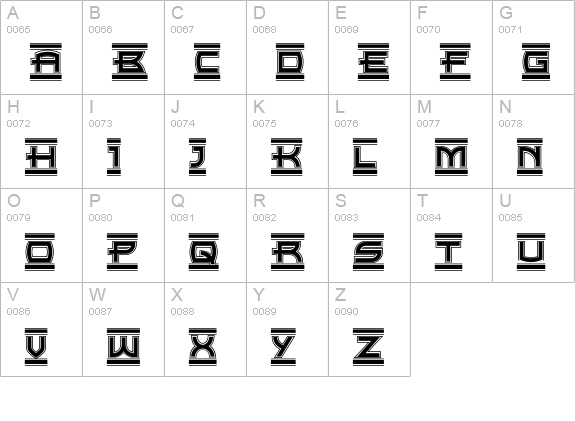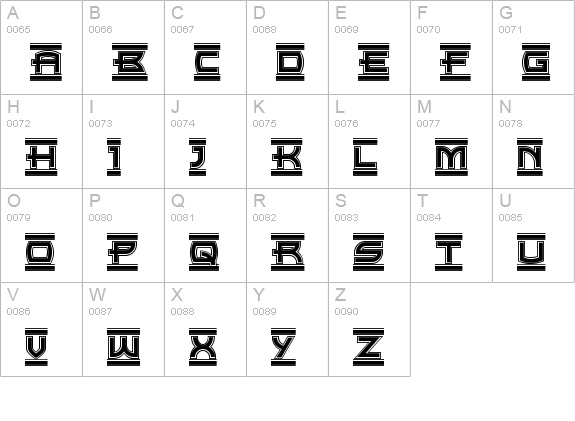
EmpireState font exudes a timeless elegance with its sleek lines and classic charm. This versatile typeface is perfect for a wide range of design projects, from elegant invitations to modern branding. Its bold yet sophisticated appearance makes a statement while maintaining readability and clarity. The EmpireState font is available for free download at FontsMarket.com, where you can easily access this stunning typeface to elevate your creative projects. Whether you're designing a logo, crafting a poster, or creating stylish stationery, EmpireState font is sure to add a touch of sophistication to your work. Download it today and unleash your creativity with this exceptional font.